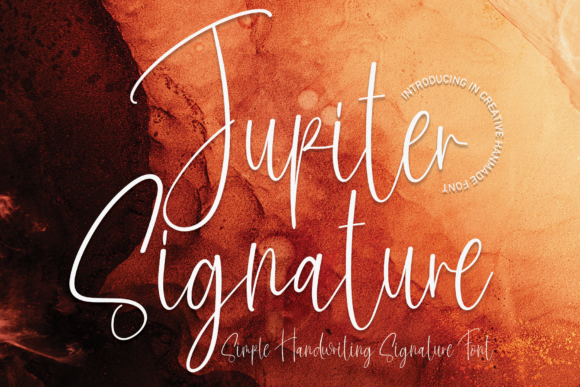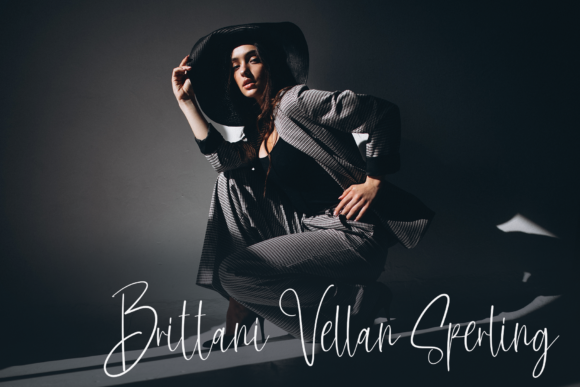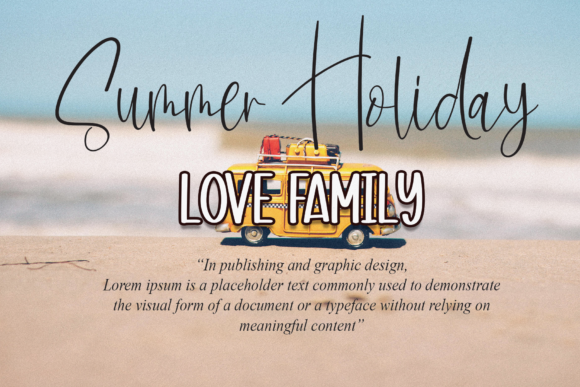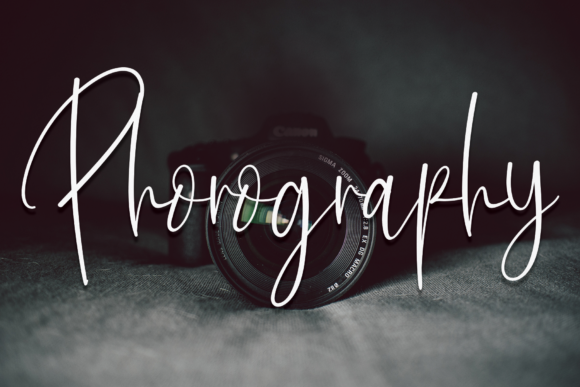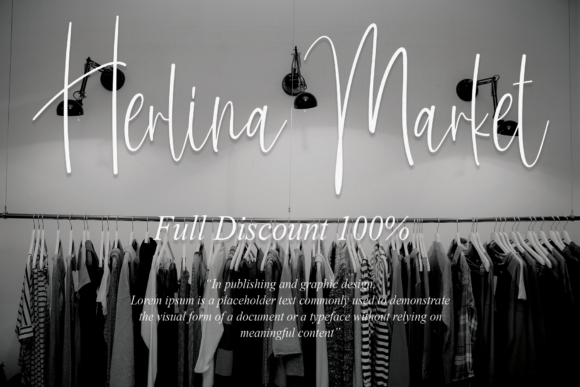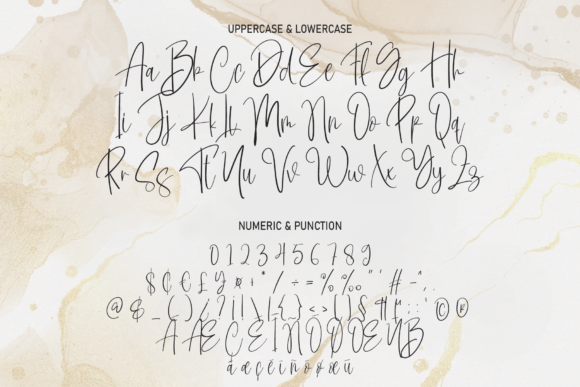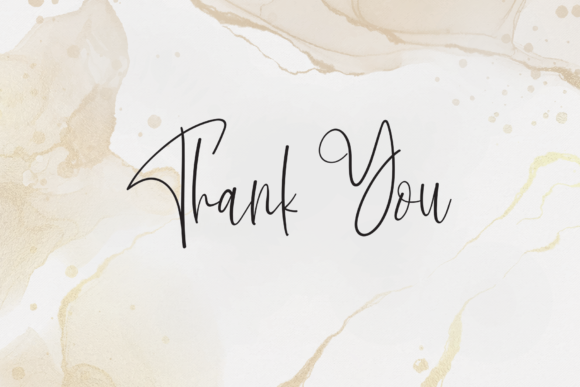
Jupiter Signature Font
About Jupiter Signature Font
Jupiter Signature is a lovely and timeless handwritten font. It is the best choice for creating eye catching logos, branding and quotes. Every letter has a unique and beautiful touch, which will make your design come alive!